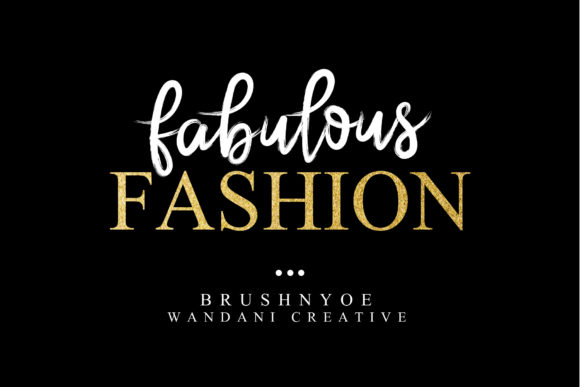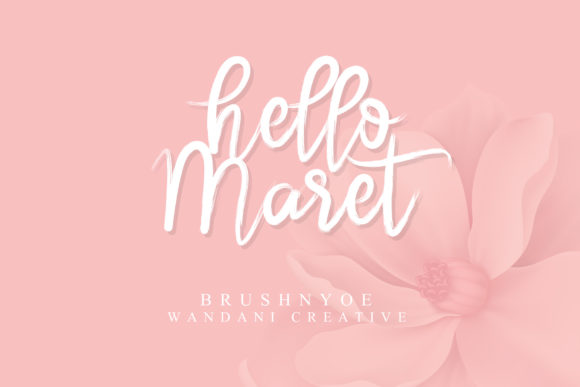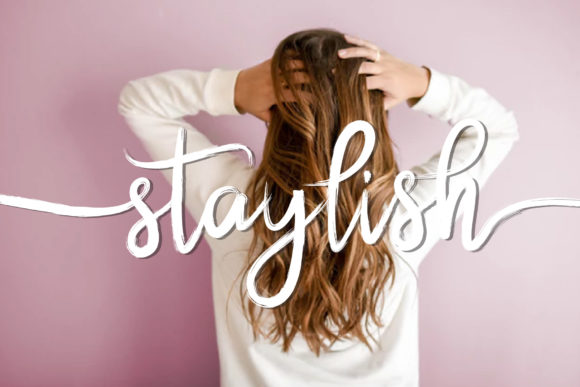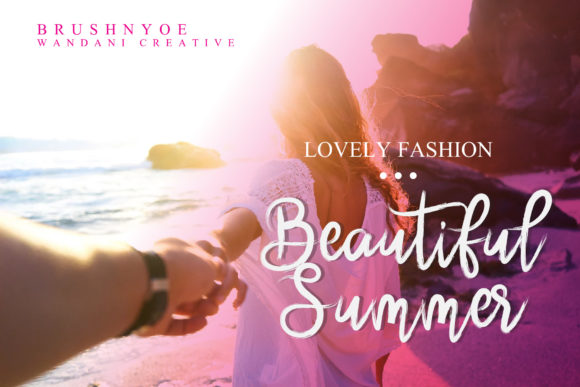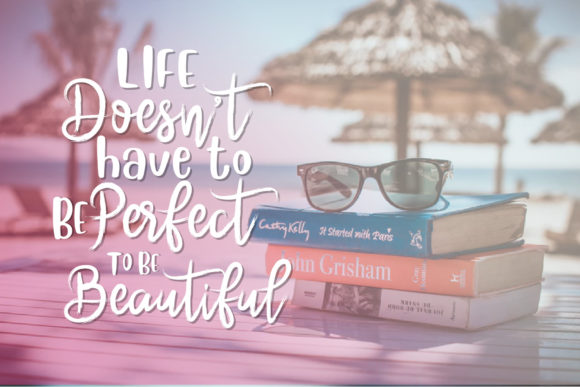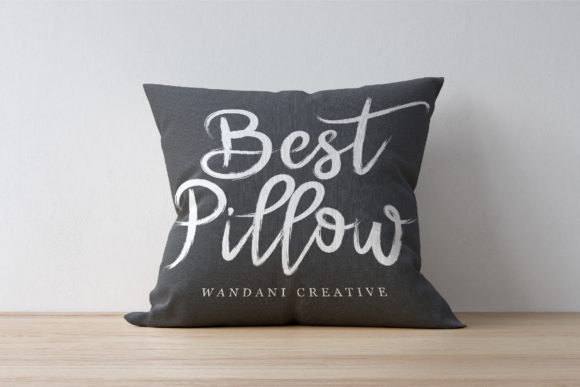
The Perfect Stroke: Unleashing Your Creativity with the Brushnyoe Font
Have you ever sat in front of a blank canvas, staring at a sea of possibilities, and wondered where to start? For designers, this moment is all too familiar. It’s the moment when inspiration strikes, and the right tools can make all the difference. That’s where the Brushnyoe Font comes in – a beautiful, versatile font that’s about to become your new best friend.
Whether you’re crafting a custom greeting card, designing a brand identity, or laying out a magazine spread, the Brushnyoe Font is the perfect companion. Its elegant, hand-drawn feel adds a touch of sophistication to any design, making it a must-have for creatives of all levels. With the Brushnyoe Font, you’ll have the freedom to express yourself and bring your vision to life in a way that’s both personal and professional.
Brushnyoe Font Key Features
- Font Family: Brushnyoe is a unique, hand-drawn font family with a distressed, brush-like appearance.
- Character Count: Brushnyoe includes over 500 characters, including uppercase and lowercase letters, numbers, and punctuation marks.
- Unique Characteristics: Brushnyoe’s distinctive, hand-drawn style gives it a warm, organic feel, perfect for adding a touch of personality to designs.
Designer Review: Brushnyoe Font
Overall, I’d say Brushnyoe Font is a decent addition to any designer’s toolkit, but it’s not without its quirks. ✨ One thing I appreciate is its unique blend of modern and vintage flair. The brush strokes are smooth, and the letterforms are well-crafted.
Here are some specific strengths and weaknesses I’ve noticed:
- ✨ The font’s versatility makes it suitable for a wide range of applications, from titles to body text.
- ✨ The varying line widths add a nice tactile feel to the text.
- ✨ The font is well-suited for digital use, with clear and legible results at various sizes.
- ⚠️ The font’s high contrast may not be ideal for dark or busy backgrounds.
- ⚠️ Some letter combinations may appear slightly irregular or ‘off’, which can be distracting.
- ⚠️ The font could benefit from additional weights or styles to enhance its overall usability.
While Brushnyoe Font is a solid choice for designers looking for a distinctive, modern feel, it’s essential to be aware of its limitations. With some careful consideration of its strengths and weaknesses, it can be a valuable addition to any design project.
Brushnyoe Font is ideal for creating unique and eye-catching headings and titles in your Canva designs.
Brushnyoe Font is perfect for creating custom typography and adding a personal touch to your designs.
Brushnyoe Font is great for adding a touch of elegance and sophistication to your presentations and documents.
Brushnyoe Font is perfect for:
- Creating unique headings and titles.
- Adding a personal touch to your designs.
- Creating custom typography.
For best results, use Brushnyoe Font in combination with other creative elements, such as illustrations and graphics, to create a visually appealing design.
Alternatives to Brushnyoe Font
Great Vibes is a beautiful, handwritten script font perfect for adding a touch of elegance and sophistication to your designs. It is ideal for use in invitations, greeting cards, and other creative projects where a personal touch is needed.
Great Vibes is similar to Brushnyoe Font in its handwritten style, but it has a more refined and polished look. It is also more versatile and can be used in a wider range of applications.
Alex Brush is a modern, cursive font that is great for use in titles, headings, and other text elements where a touch of personality is needed. It is ideal for use in digital products, such as apps and websites, as well as in print materials like brochures and flyers.
Alex Brush is similar to Brushnyoe Font in its playful and creative style, but it has a more modern and sleek look. It is also more readable at smaller font sizes.
Carolyna Pro is a luxurious, handwritten font that is perfect for use in high-end designs, such as luxury brand materials and premium packaging. It is ideal for use in titles, headings, and other text elements where a touch of sophistication and elegance is needed.